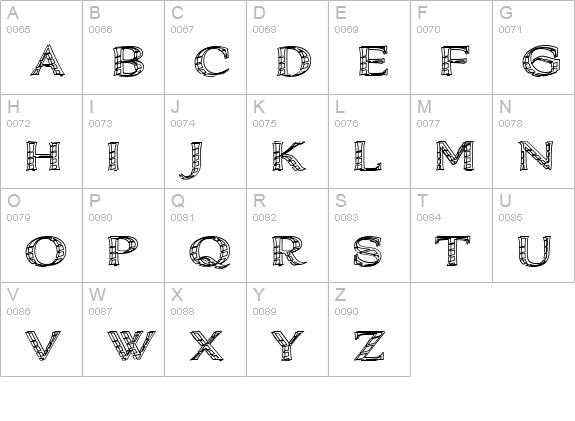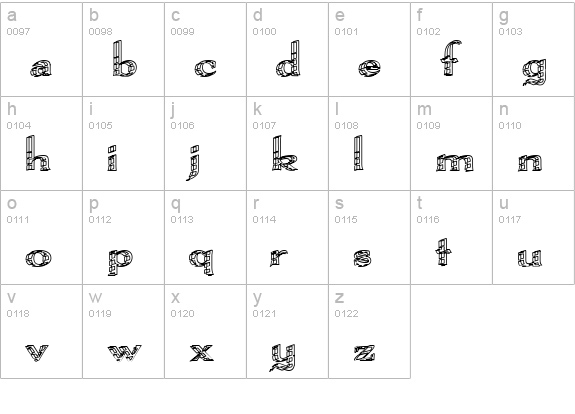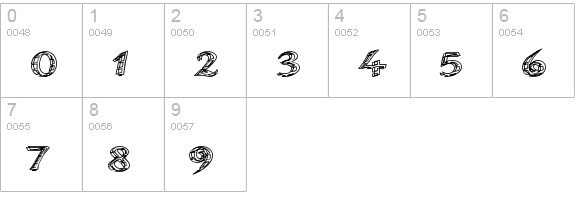
Pamelor II Font Details
Pamelor II font is a beautifully crafted typeface that strikes the perfect balance between elegance and readability. Its graceful curves and clean lines make it a versatile choice for a wide range of design projects, from branding to editorial layouts. The font's timeless appeal and classic aesthetic make it a must-have for any designer looking to add a touch of sophistication to their work. What's even better is that Pamelor II font is available for free download at FontsMarket.com. This means you can easily access this stunning typeface without breaking the bank. Whether you're a seasoned designer or just starting out, Pamelor II font is sure to elevate your designs and help you create something truly special. Download it today and see the difference it can make in your projects.